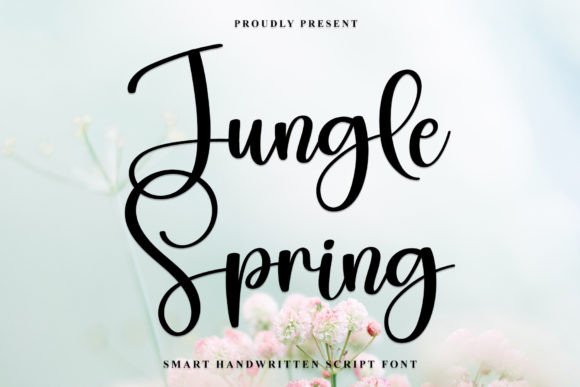
Welcome to Jungle Spring Font - A Stroke of Elegance for Your Creative Journey
In the realm of typography, where letters dance in harmonious unity, there exists a font family that captivates hearts with its ethereal beauty and timeless charm. It is Jungle Spring Font, an exquisitely crafted handwritten typeface born from the creative genius of PiPi Creative.
Jungle Spring Font is an enchanting calligraphy font that exudes a sense of delicate elegance akin to the enchanting susurrus of a gentle spring breeze. Its meticulously crafted glyphs, created with a deft hand and a discerning eye for detail, intertwine harmoniously to create an aesthetic that is both visually stunning and deeply evocative.
Picture this: a wedding invitation adorned with the graceful strokes of Jungle Spring Font. The letters, flowing with a rhythm all their own, invite guests to a celebration imbued with romance and sophistication. Or envision a heartfelt letter penned with this font, each word carrying a profound sentiment, elegantly expressed through the expressive curves and flourishes of Jungle Spring.
The versatility of Jungle Spring Font extends far beyond the realm of weddings and personal correspondence. It lends an air of distinction to logos, branding materials, and marketing campaigns. Its ability to elevate any design project with a touch of elegance and refinement makes it a favorite among discerning creatives worldwide.
Let Jungle Spring Font ignite your imagination and transform your creative visions into tangible works of art. This enchanting font will add a touch of magic to your designs, captivating your audience with its undeniable beauty and charm.